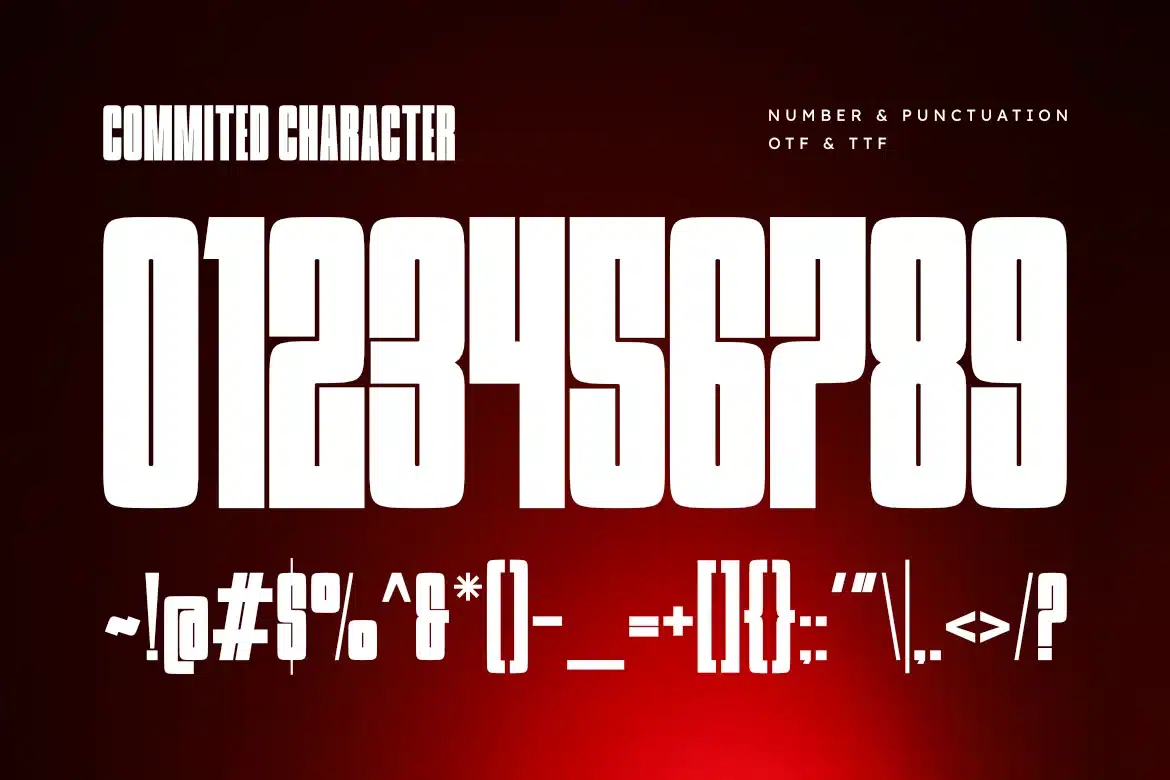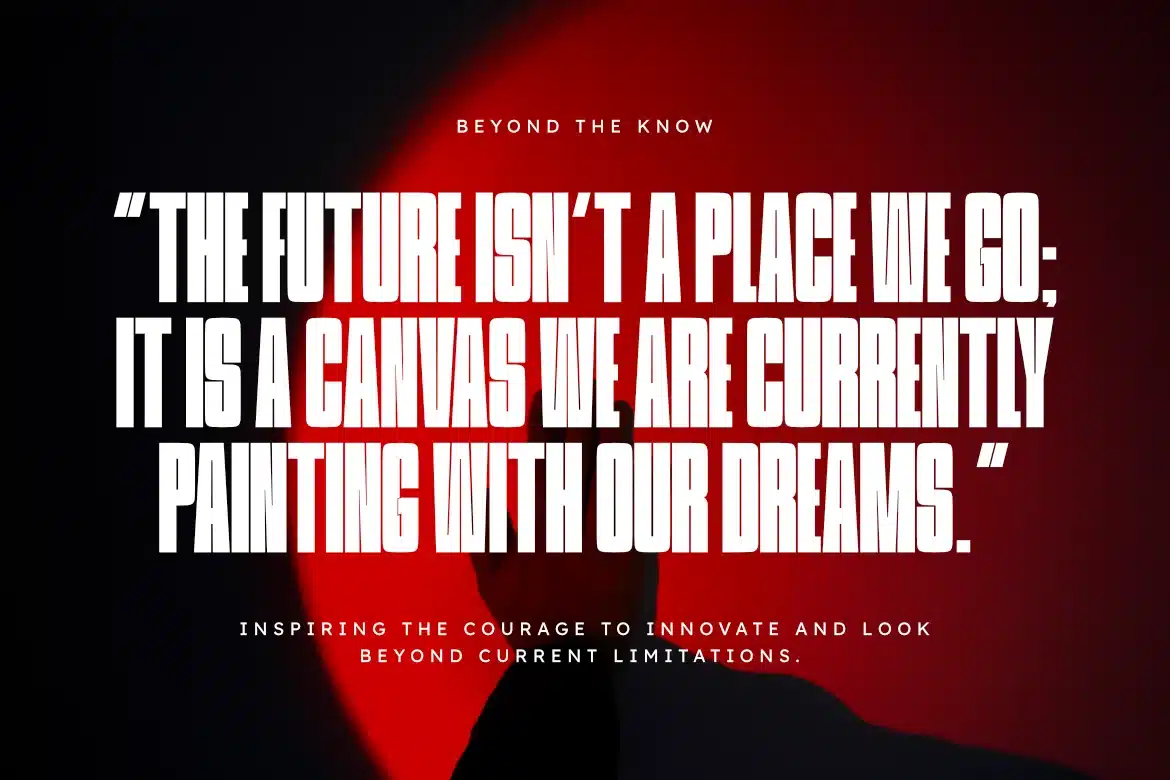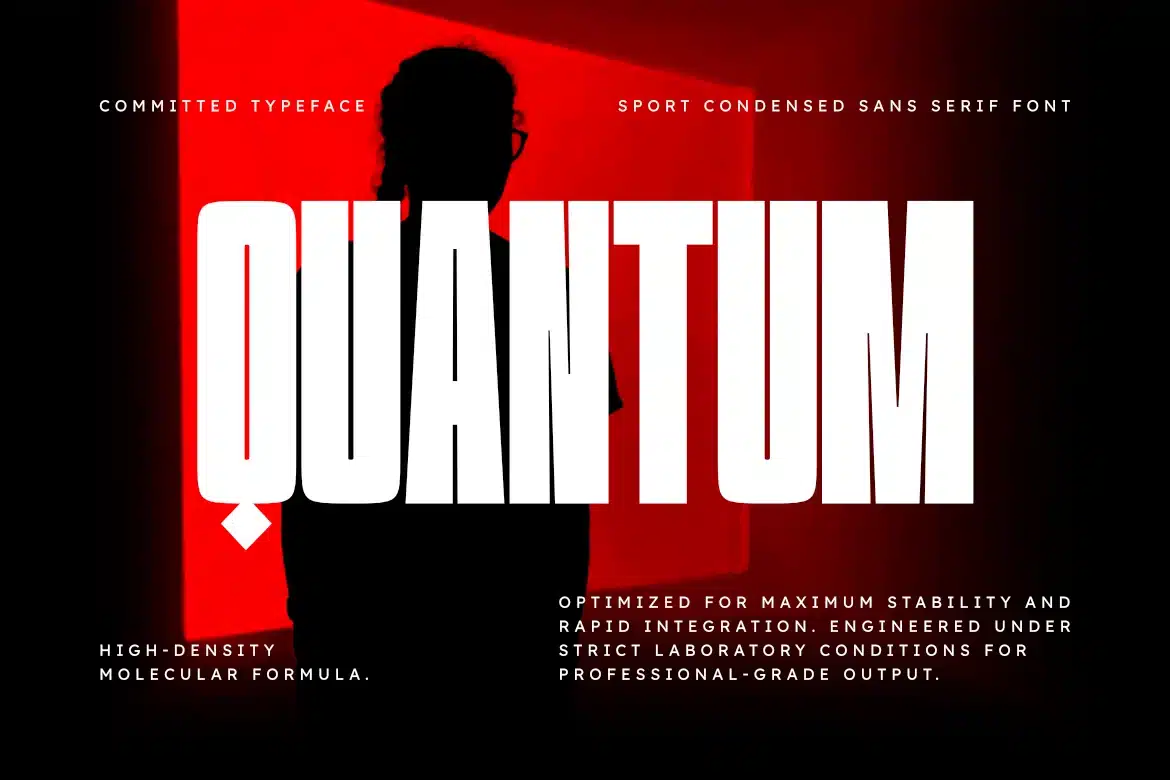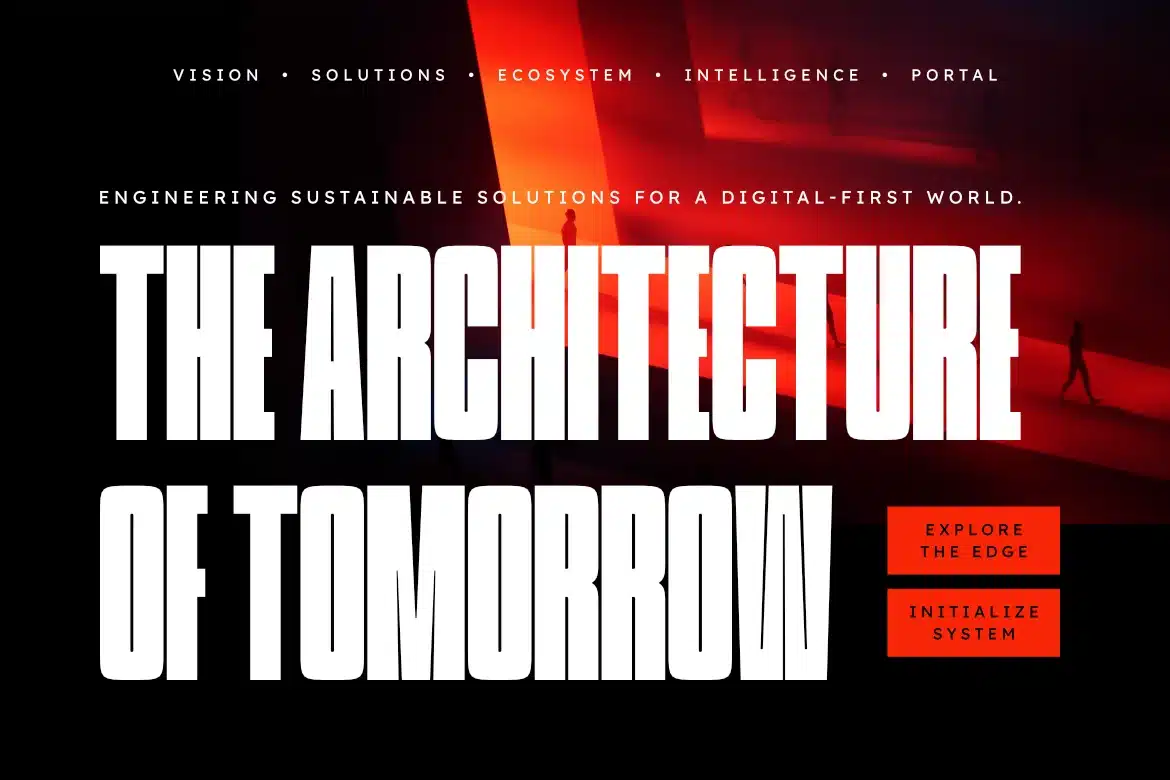
Committed – Sport Condensed Sans Serif Font
Committed is a sophisticated and powerful sport condensed sans serif font, thoughtfully designed to capture the essence of industrial strength and bold storytelling. With its tall, compact structure and heavy geometric lines, Committed offers a professional aesthetic that brings a touch of commanding presence to any creative project.
This font is the ideal choice for designers looking to add a professional yet high-impact touch to their work. Whether you are crafting a striking sports poster, a modern fitness logo, or bold editorial layouts, Committed provides a seamless blend of contemporary flair and timeless authority.
Main Features:
- Condensed Sport Design: Optimized for a bold, space-efficient look.
- Refined Geometric Letterforms: Meticulously crafted for maximum legibility in headlines.
- Commanding Presence: Perfect for posters, and large-scale displays.
- Professional Aesthetic: High-end finish for modern branding and identity design.
Best Used For:
Sports branding, gym and fitness logos, impactful advertising, movie posters, headline news, and bold architectural signage.